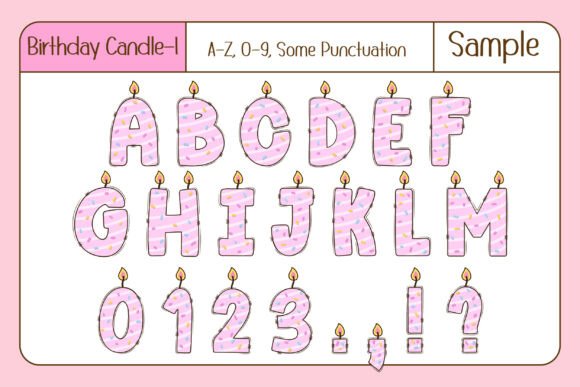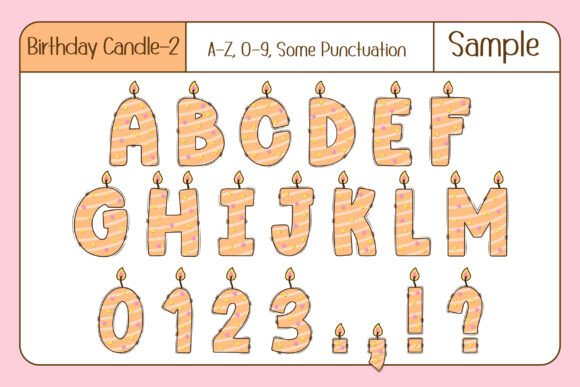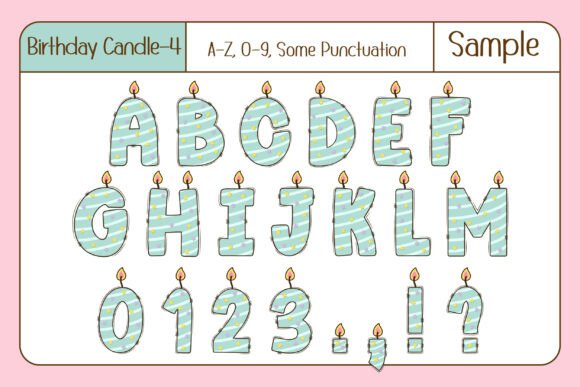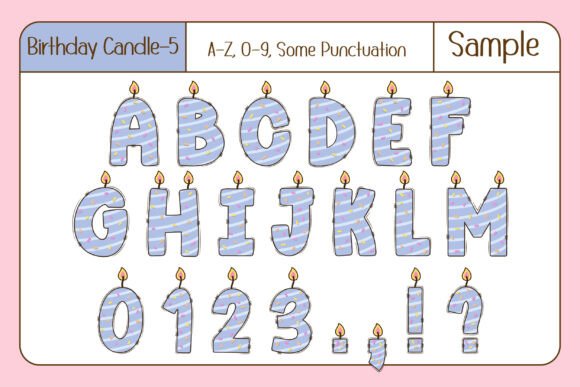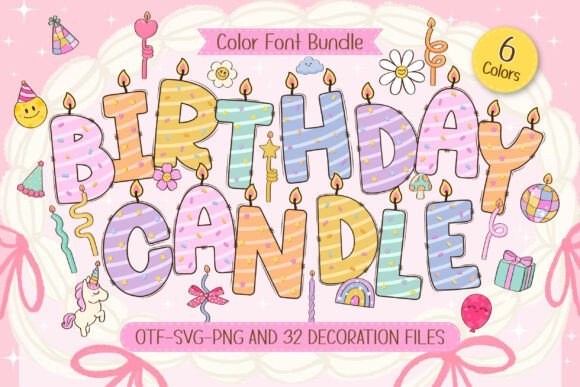
Introducing the Birthday Candle Font: A Playful and Cheerful Typeface for Celebratory Designs
Are you looking for a font that can add a touch of fun and excitement to your designs? Look no further than the Birthday Candle font! This playful and cheerful color font is inspired by cute birthday candles and sweet party decorations, making it the perfect choice for birthday invitations, party banners, children’s book covers, and festive social media posts.
A Unique and Festive Typeface
The Birthday Candle font is a creative typeface that transforms each letter into a decorative party candle, complete with stripes, sprinkles, and a flickering flame on top. This unique design makes it an instant attention-grabber, adding a sense of wonder and excitement to any project. The font is designed to spark happiness, featuring a “color font” style that looks three-dimensional and hand-illustrated.
Perfect for Celebratory Designs
Whether you’re a parent planning a party or a professional designer working on festive merchandise, the Birthday Candle font is the ultimate choice for creating celebratory designs. It’s perfect for:
• Birthday invitations and party banners
• Children’s book covers and educational materials
• Festive social media posts and online graphics
• Greeting cards and stickers
• Planners and posters
• Digital crafts and party decorations
Design Features and Benefits
The Birthday Candle font offers a range of design features and benefits, including:
• A unique and festive design that adds a touch of fun and excitement to any project
• A “color font” style that looks three-dimensional and hand-illustrated
• Each letter is designed as a decorative party candle, complete with stripes, sprinkles, and a flickering flame on top
• Perfect for creating celebratory designs for kids’ parties, birthdays, and other special occasions
• Easily pairs with confetti graphics and bright balloons to create a cohesive celebratory theme
Tips for Using the Birthday Candle Font
Here are some tips for using the Birthday Candle font in your designs:
• Pair it with bright and bold colors to create a festive and celebratory theme
• Use it in combination with confetti graphics and balloons to add a touch of whimsy and fun
• Experiment with different font sizes and styles to create a unique and eye-catching design
• Use it to create custom party invitations, banners, and decorations that will make your party stand out
Why Choose the Birthday Candle Font?
There are many reasons why you should choose the Birthday Candle font for your celebratory designs. Here are just a few:
• It’s a unique and festive font that adds a touch of fun and excitement to any project
• It’s perfect for creating celebratory designs for kids’ parties, birthdays, and other special occasions
• It’s easy to use and pairs well with a range of graphics and design elements
• It’s a great way to add a personal touch to your designs and make them stand out
In conclusion, the Birthday Candle font is a playful and cheerful color font that is perfect for creating celebratory designs. Its unique and festive design makes it an instant attention-grabber, adding a sense of wonder and excitement to any project. Whether you’re a parent planning a party or a professional designer working on festive merchandise, this font is the ultimate choice for adding a touch of fun and whimsy to your designs.